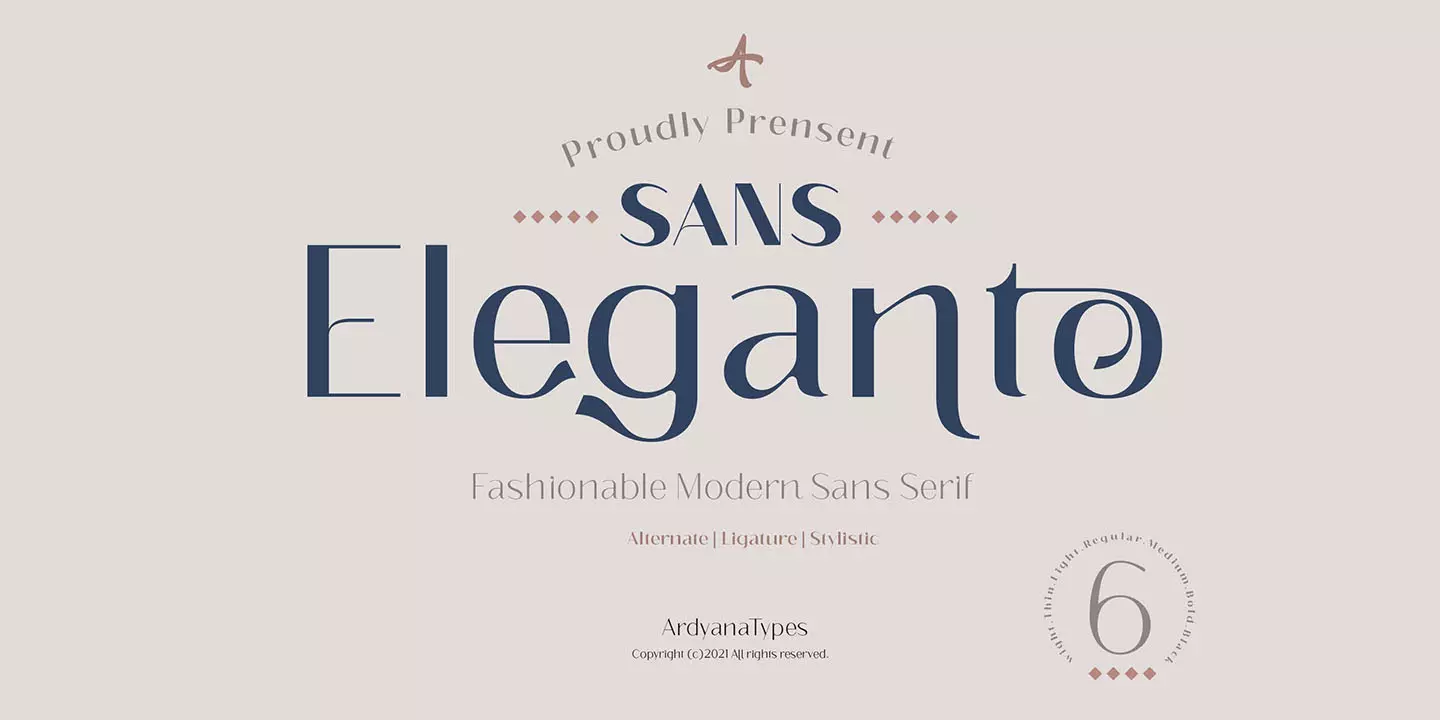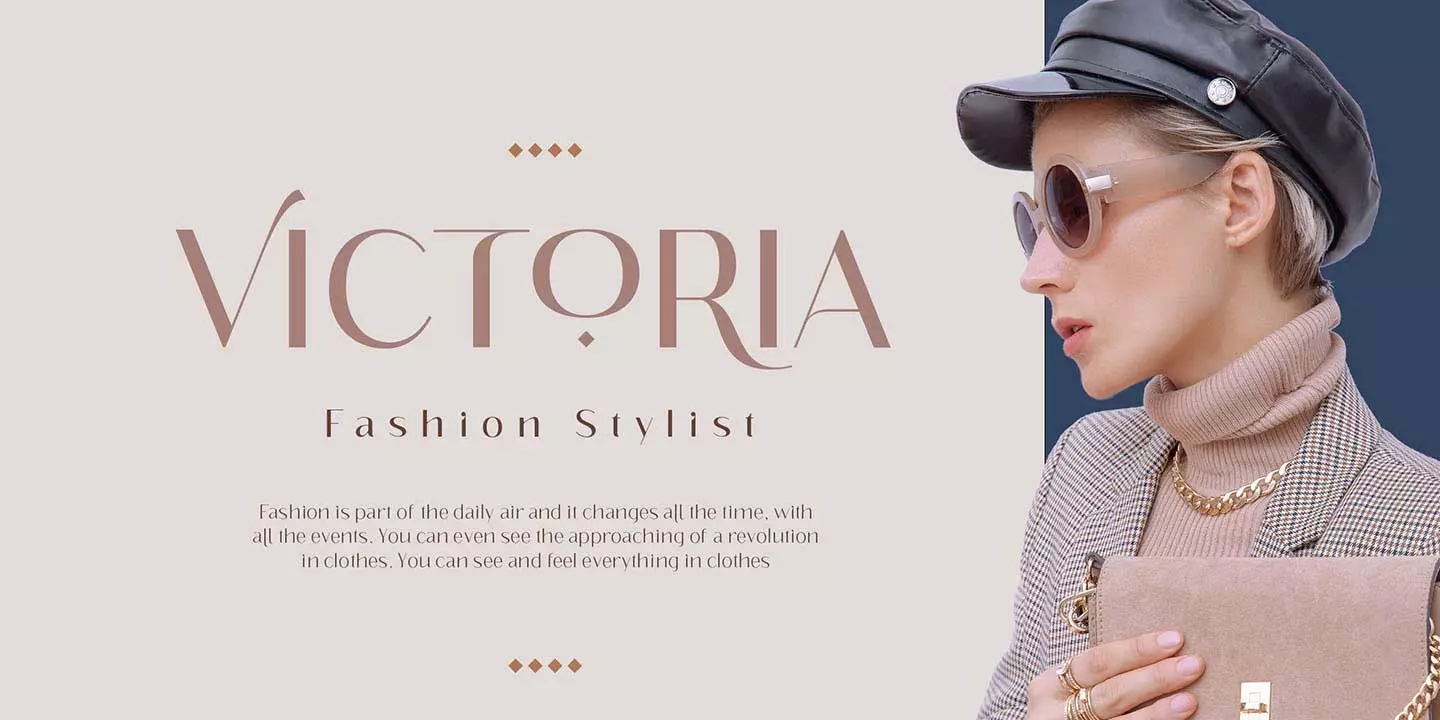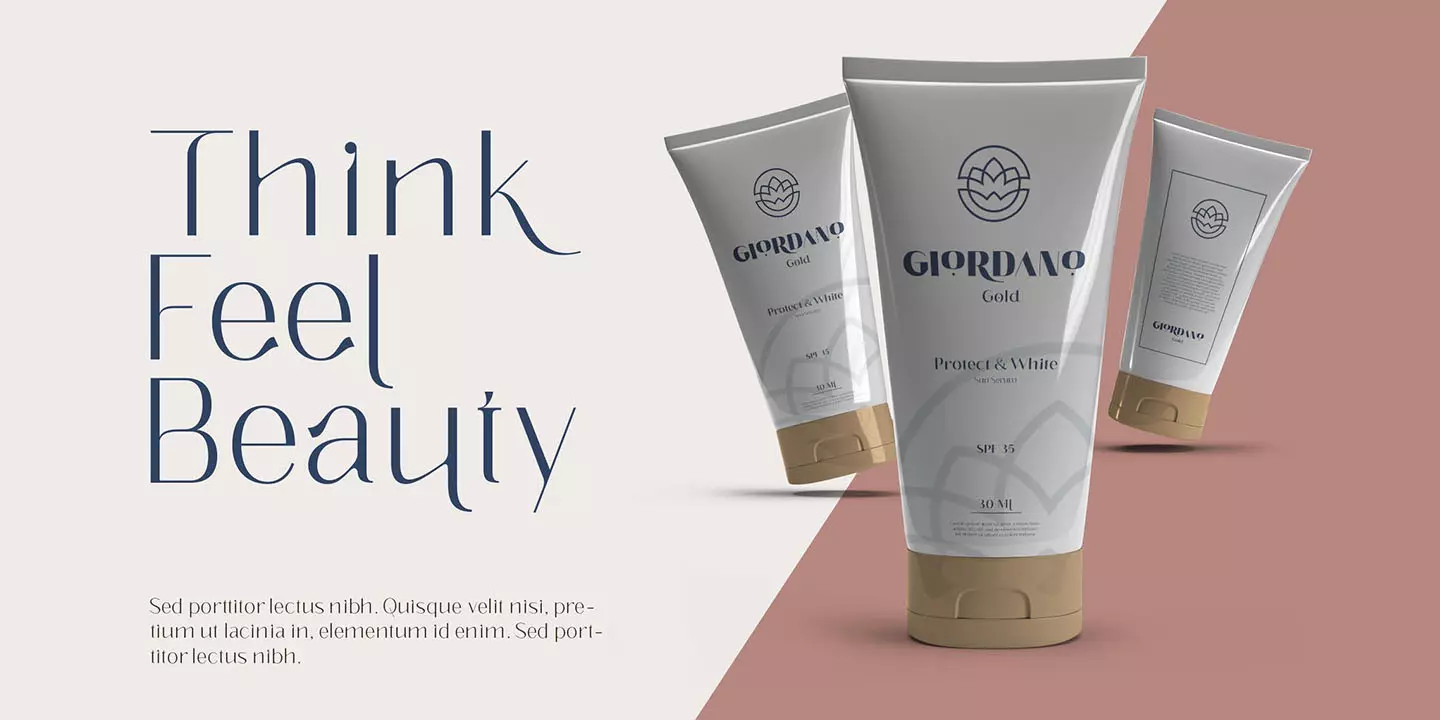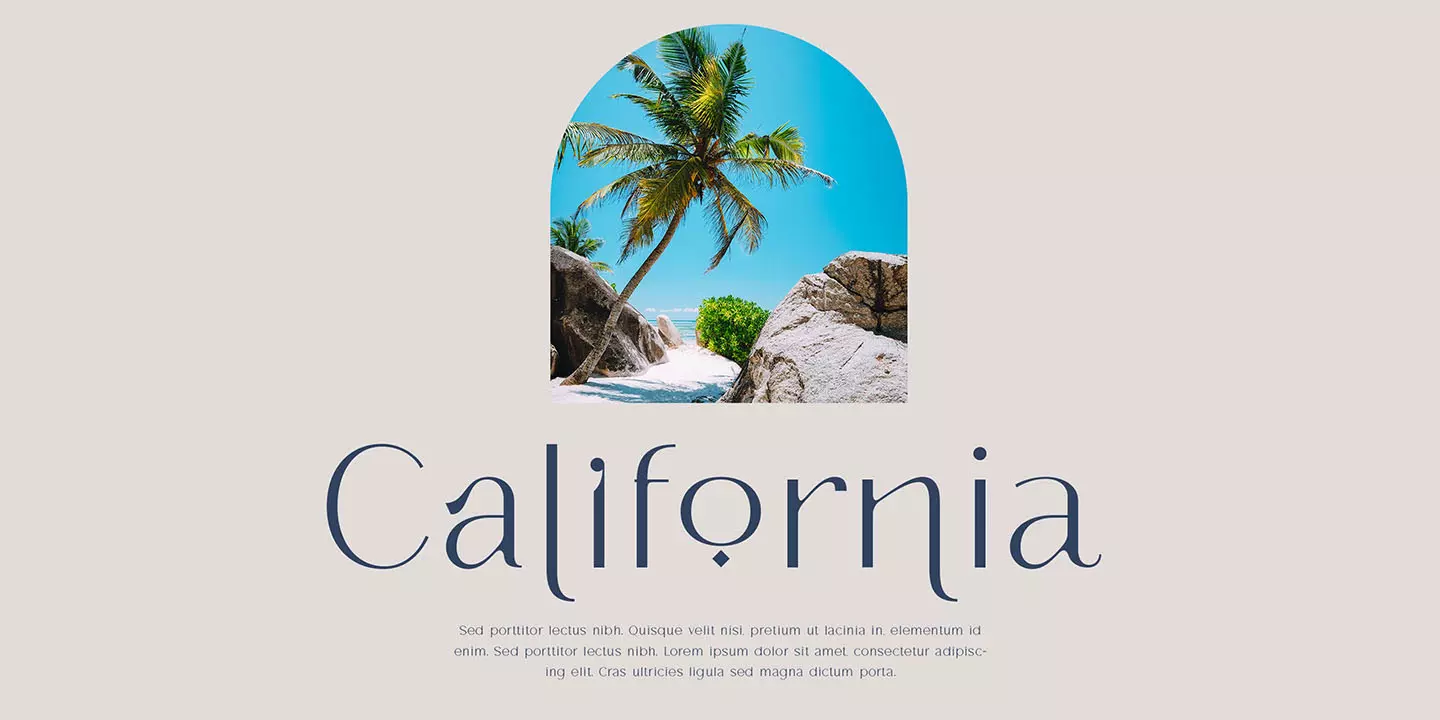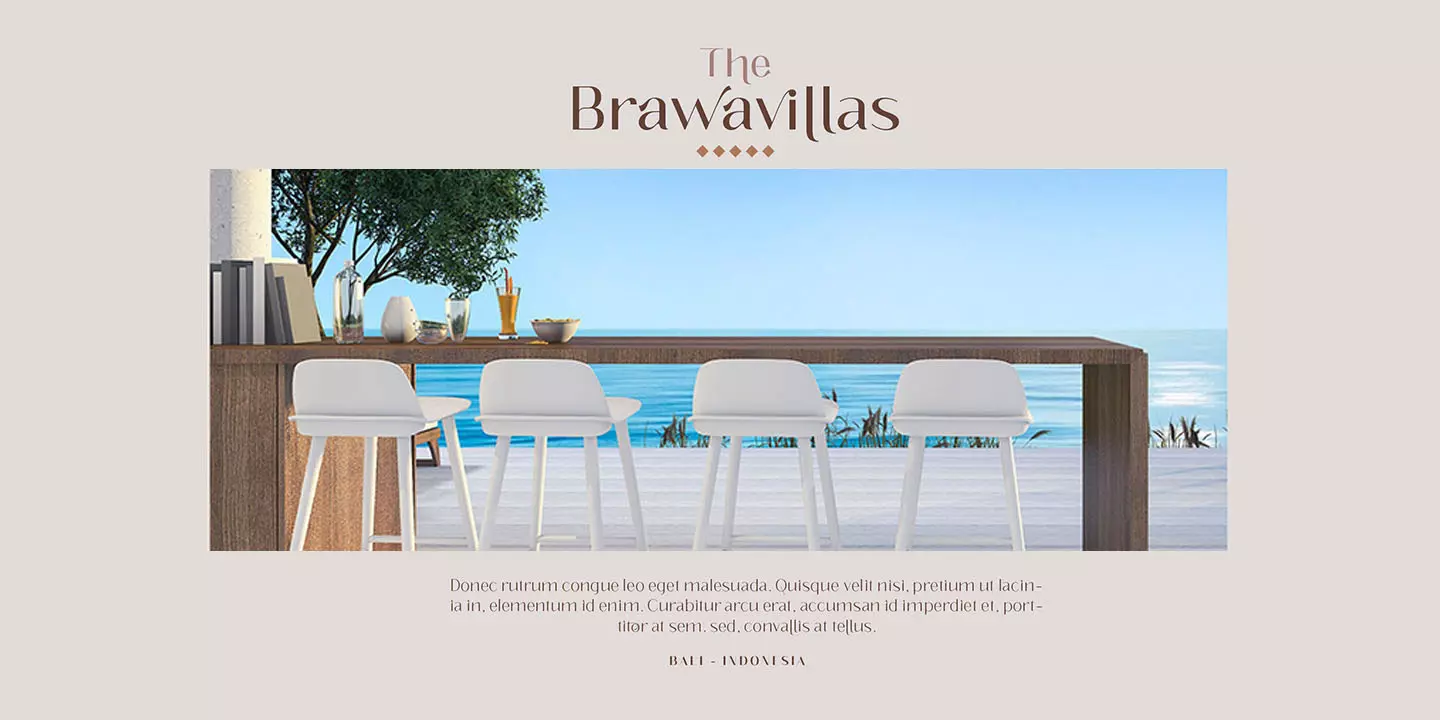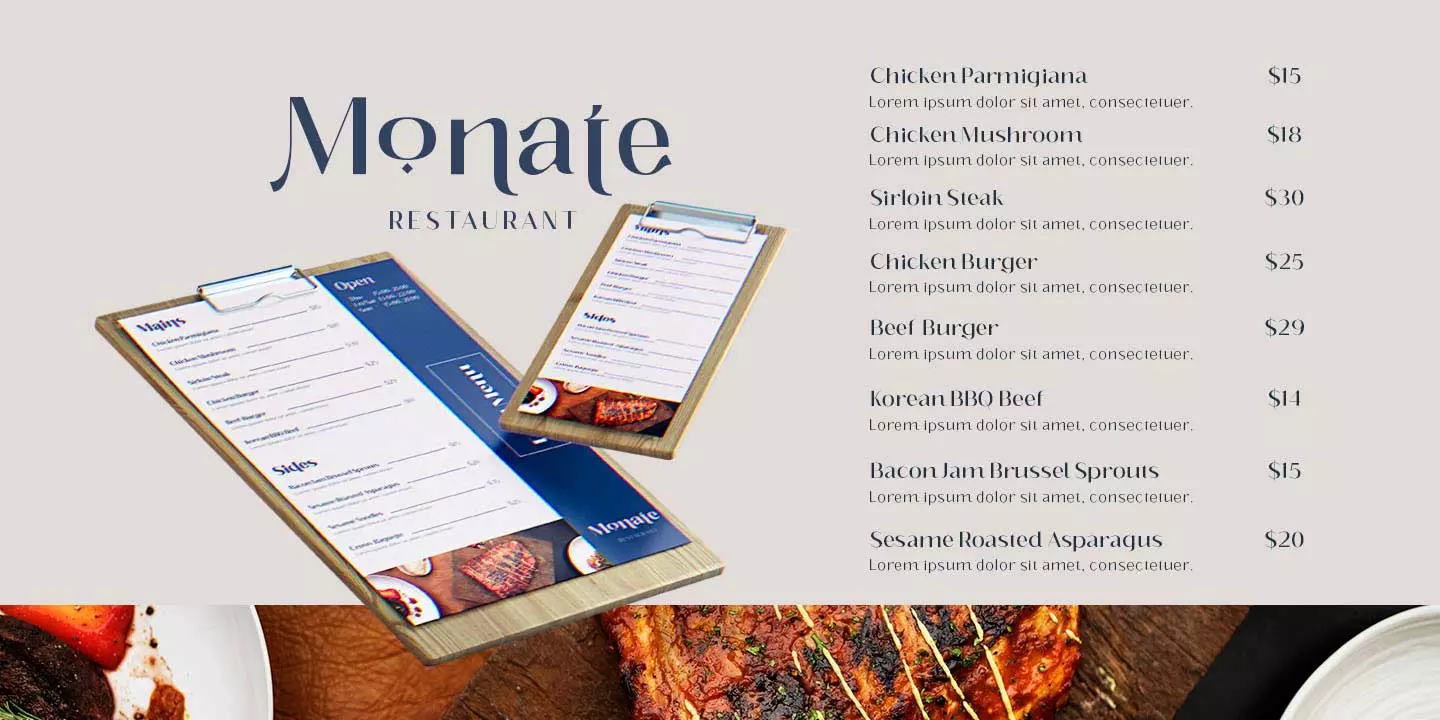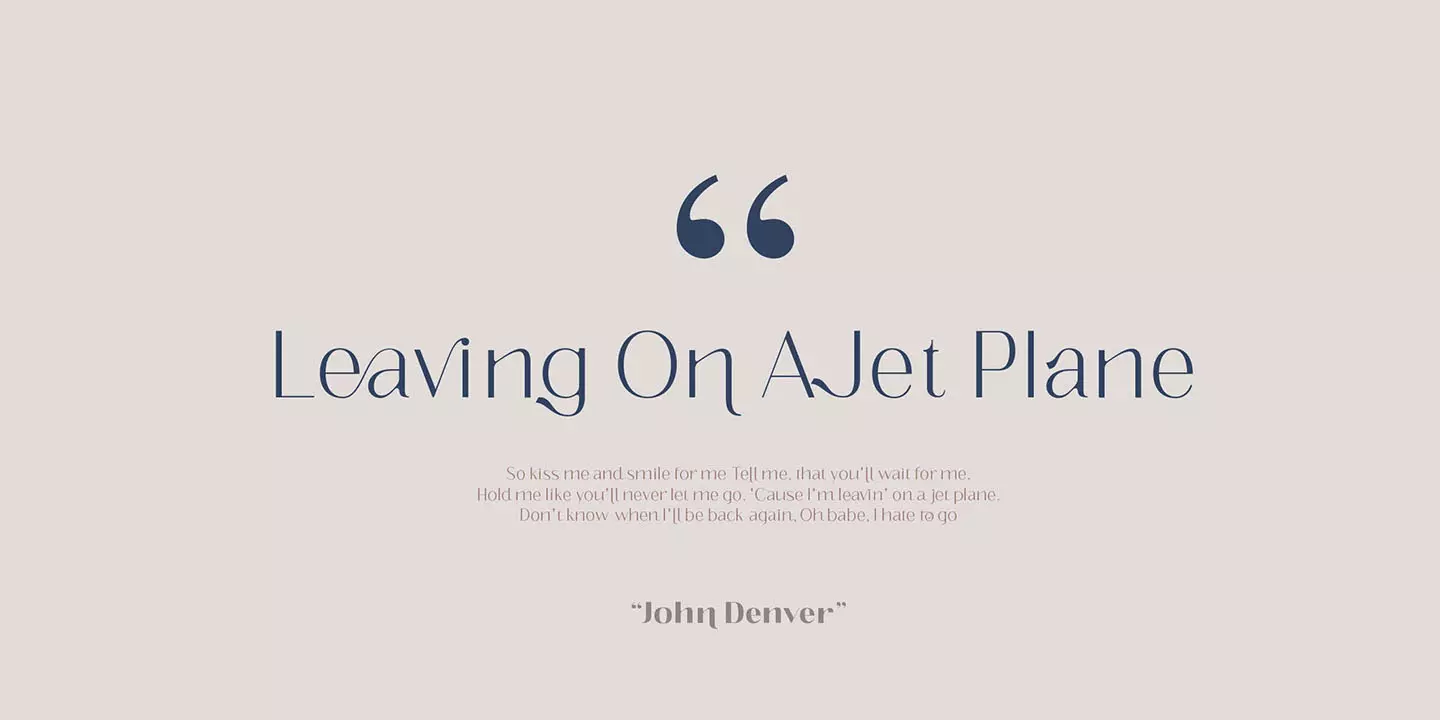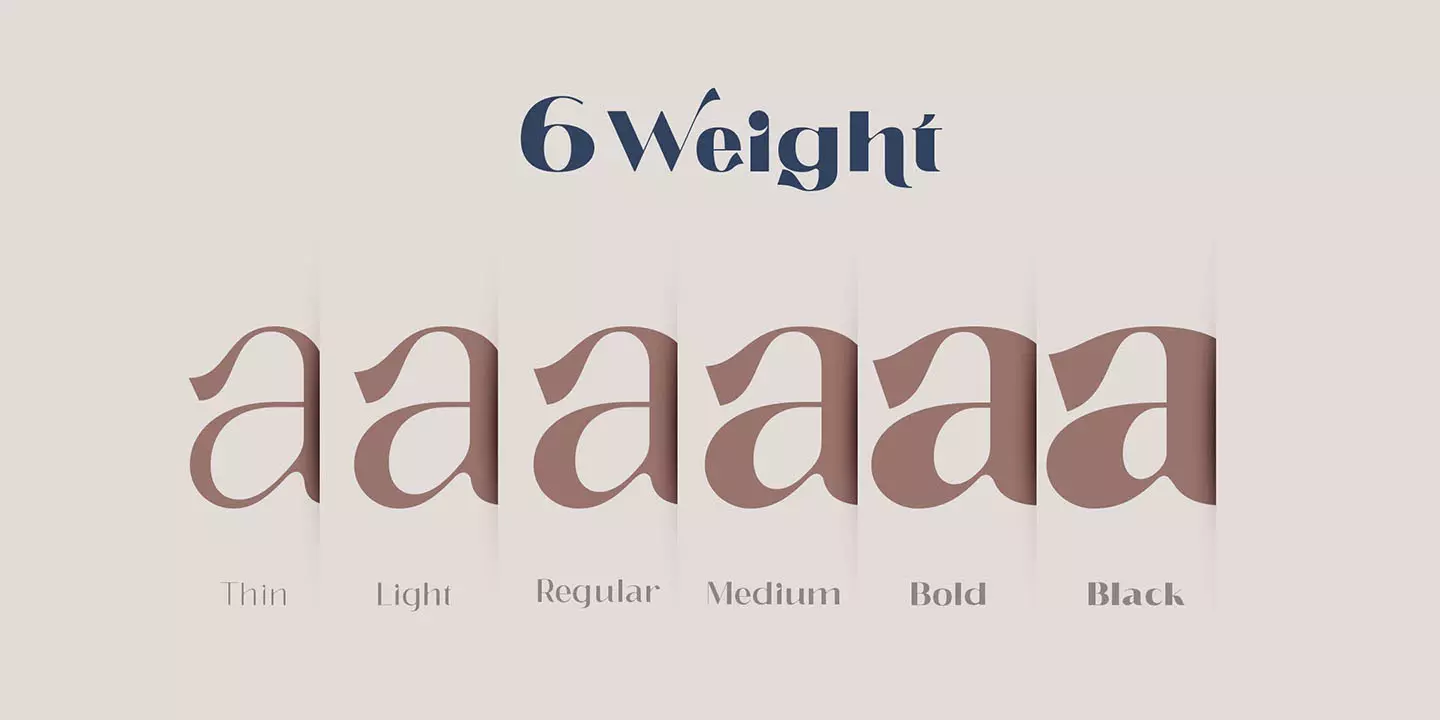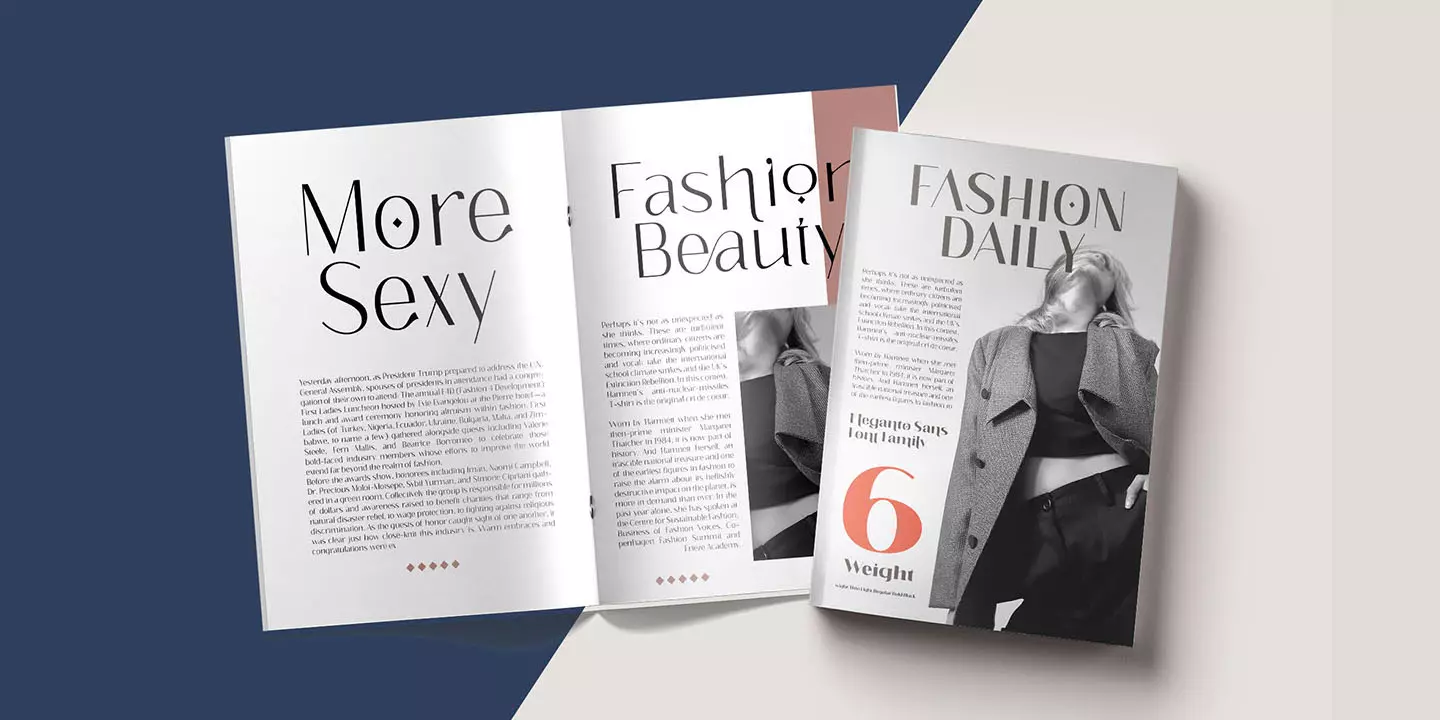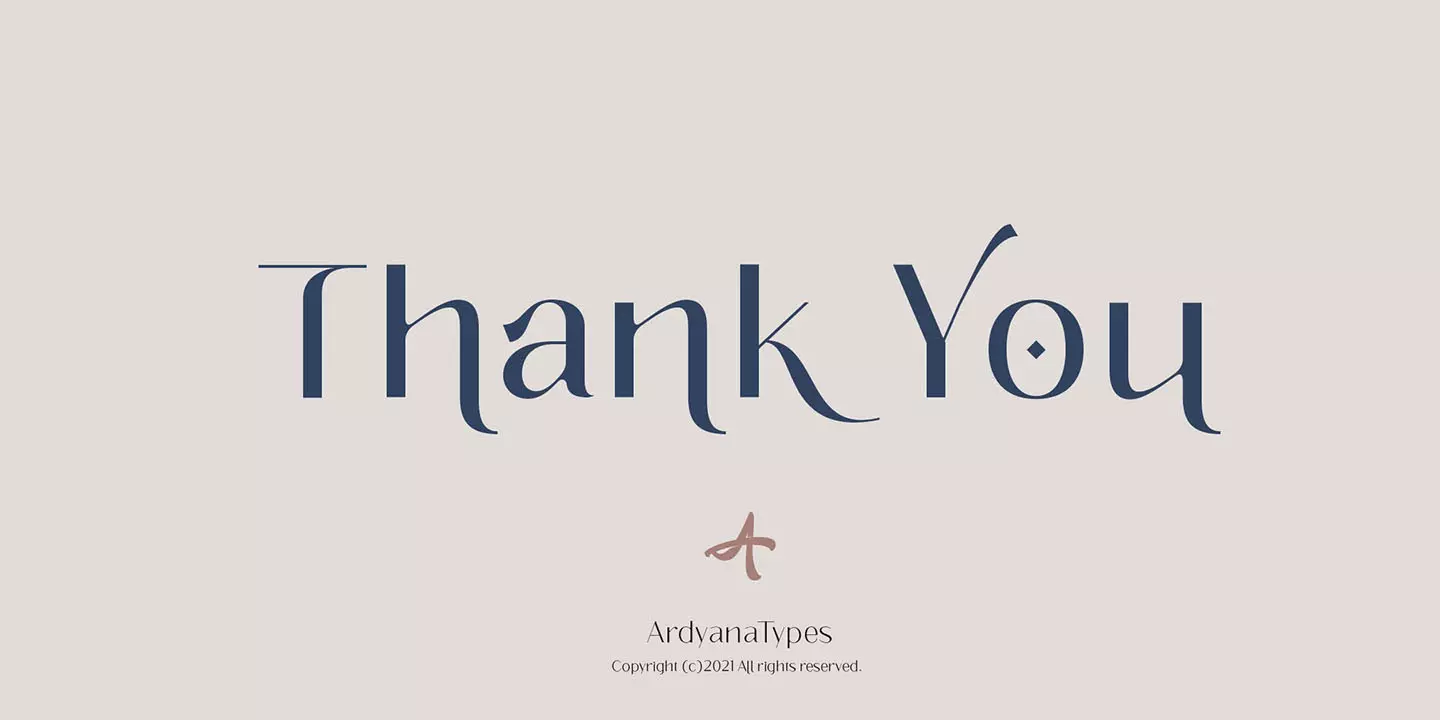
Eleganto Sans
Señoras y Señores, hats off ~ eso es todo . . . ELEGANTO Sans Serif!
A Fashionable Modern Sans Serif with special alternative letters and multilingual support for elegant, upscale, chic, and classy branding designs
Look at that curve shape as a sexy hip and legs walk out! This character set makes your designs more brave, eccentric, and fascinating
Comes out with 6 weight as your wish for any needs.
y es tan perfecto! Superfit with your design moods as beauty care, boutique, fashion sale promotion, villas, restaurants, and much more where your design style goes by
Of course, the ligatures will make it all double perfects, be ready! this is the time to have all that ELEGANTO style